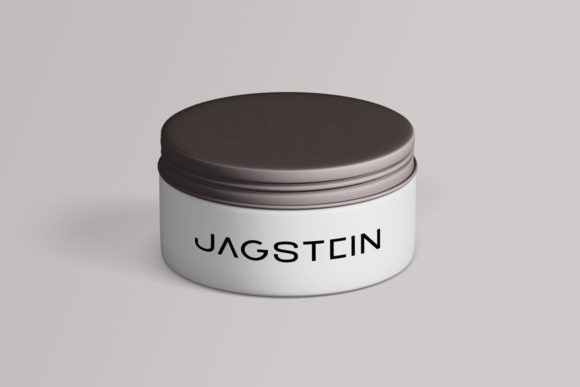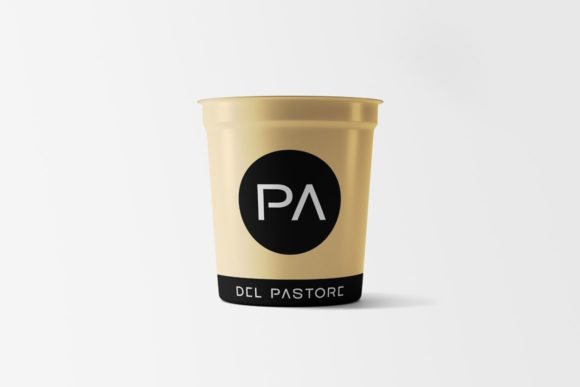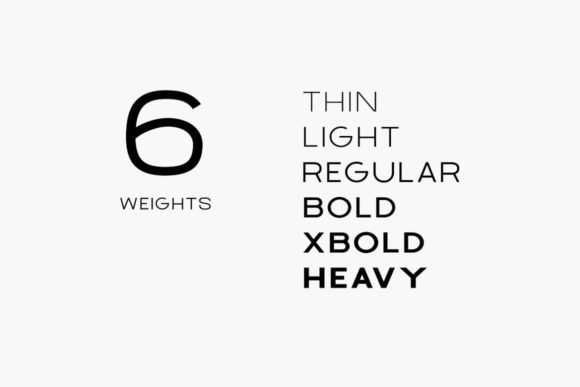
Discover the Elegance of Barques Font: A Minimalist and Techno-Styled Display Font
In the realm of typography, the right font can elevate a design from ordinary to extraordinary. For designers and crafters seeking a clean, thin, and modern aesthetic, Barques Font is an excellent choice. This article will delve into the features and benefits of Barques Font, exploring how its minimalist and techno-styled design can enhance your web designs, logos, and various creative projects.
What is Barques Font?
Barques Font is a clean and thin lettered display font, characterized by its minimalist and techno-styled design. Its sleek lines and modern aesthetic make it an ideal choice for projects that require a smart and cool touch. Whether you’re working on a website, logo, or any other design project, Barques Font can add a touch of sophistication and elegance.
Key Features of Barques Font
• Clean and Thin Design: Barques Font boasts a clean and thin design, making it perfect for projects that require a subtle yet modern aesthetic.
• Minimalist Style: The font’s minimalist style ensures that it won’t overpower your design, allowing you to convey your message with clarity and precision.
• Techno-Styled: The techno-styled design of Barques Font gives it a cutting-edge look, making it suitable for projects that require a modern and innovative feel.
• Versatility: Barques Font can be used in a wide range of projects, from web designs and logos to brochures, posters, and more.
Benefits of Using Barques Font
So, why should you choose Barques Font for your design projects? Here are some benefits that make it an excellent choice:
• Enhances Readability: The clean and thin design of Barques Font ensures that your text is easy to read, even at small font sizes.
• Conveys Professionalism: The modern and techno-styled design of Barques Font conveys a sense of professionalism and sophistication, making it perfect for projects that require a high-end look.
• Boosts Creativity: The minimalist style of Barques Font allows you to experiment with different design elements, giving you the freedom to express your creativity.
How to Use Barques Font in Your Design Projects
Using Barques Font in your design projects is easy. Here are some tips to get you started:
• Pair it with Other Fonts: Experiment with pairing Barques Font with other fonts to create a unique and visually appealing design.
• Adjust Font Sizes: Play with different font sizes to create a hierarchy of information and add depth to your design.
• Experiment with Colors: Try out different colors to find the perfect combination that complements your design and enhances the overall aesthetic.
In conclusion, Barques Font is an excellent choice for designers and crafters seeking a clean, thin, and modern aesthetic. Its minimalist and techno-styled design makes it perfect for projects that require a smart and cool touch. With its versatility, readability, and professionalism, Barques Font is sure to elevate your design projects to the next level. So, download Barques Font today and experience the elegance of minimalist typography!